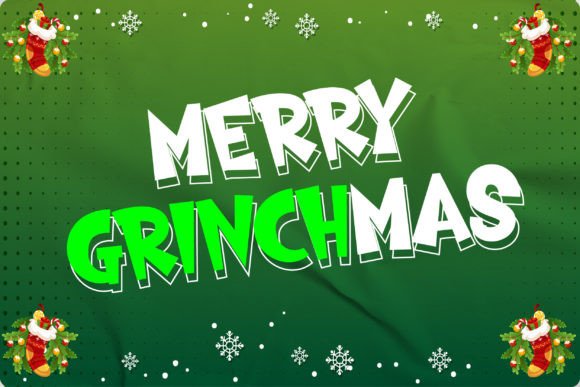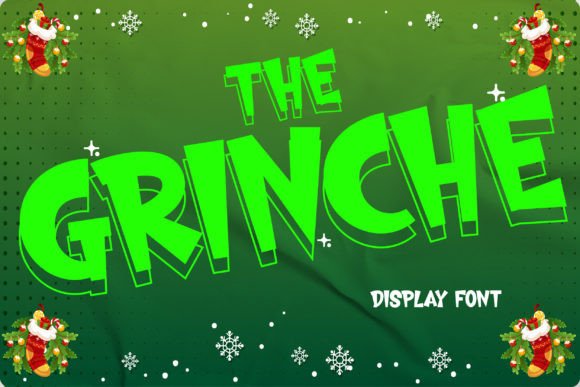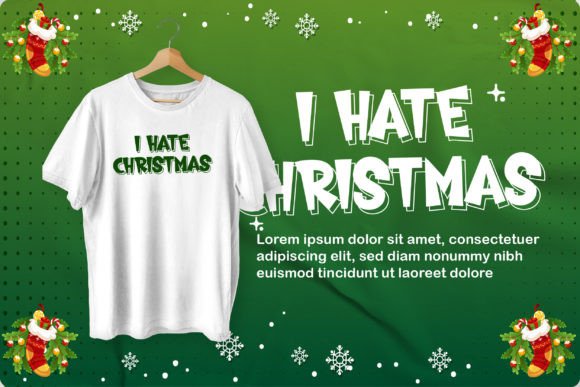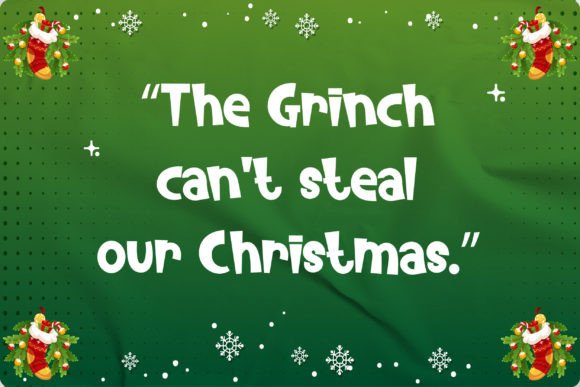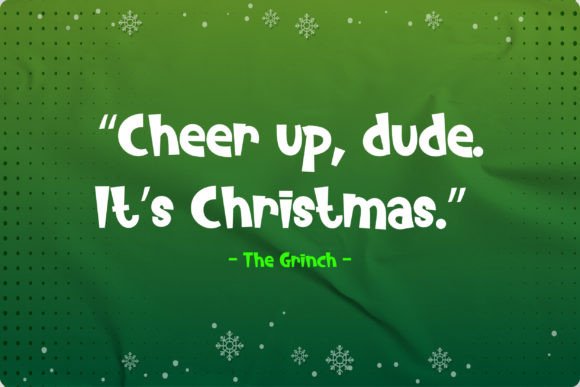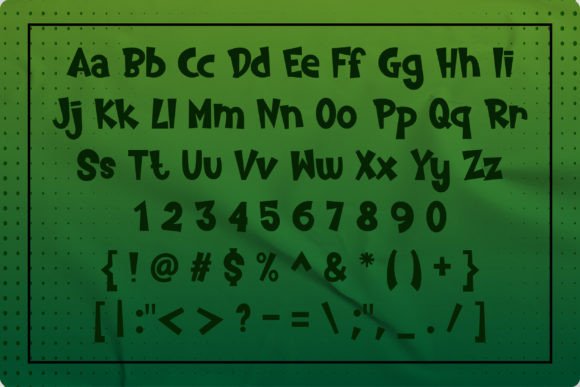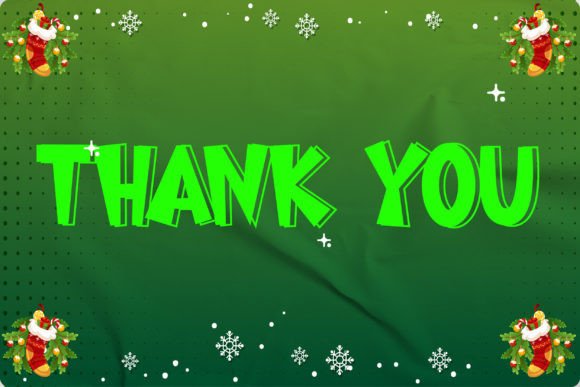
The Grinch Mas Font
The Grinch Mas font is a font inspired by Christmas. You can use it in any project so you will look unique and different. Use it for t-shirts, covers, brochures, etc